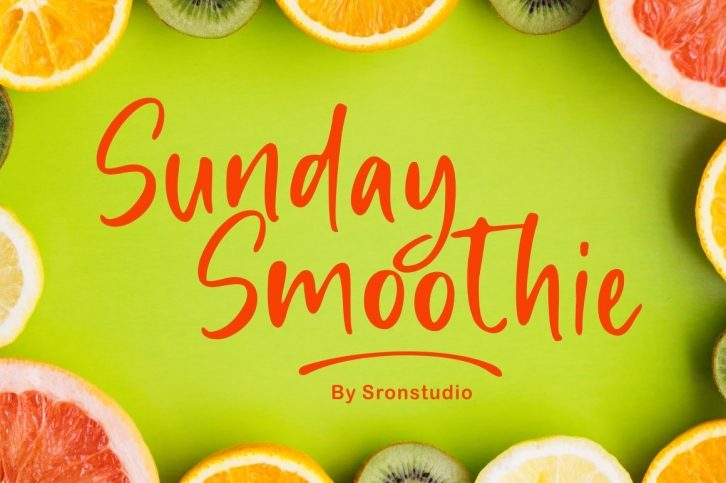
Sunday Smoothie is a beautiful font that was designed by Sronstudio. It's a great choice for designers and creatives who need such a font. It was released on August 14, 2020 and the file size is 10.76 MB. Sunday Smoothie may give a more youthful, expressive and casual look to your project. It is a very beautiful, refined, elegant, and high-quality font.